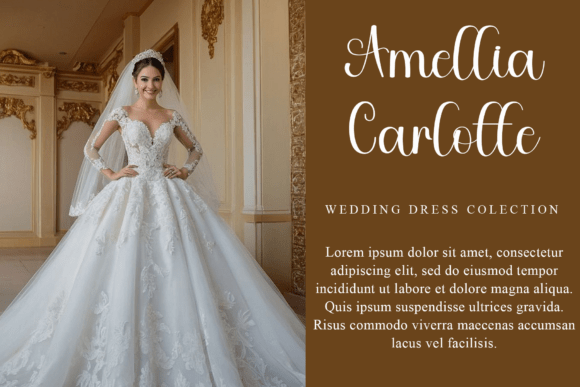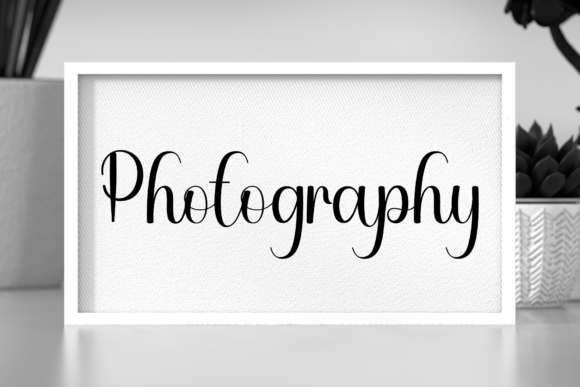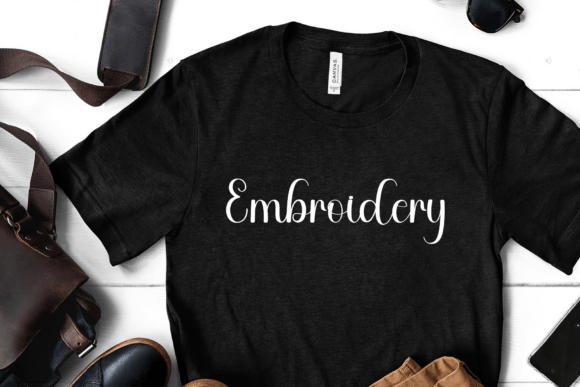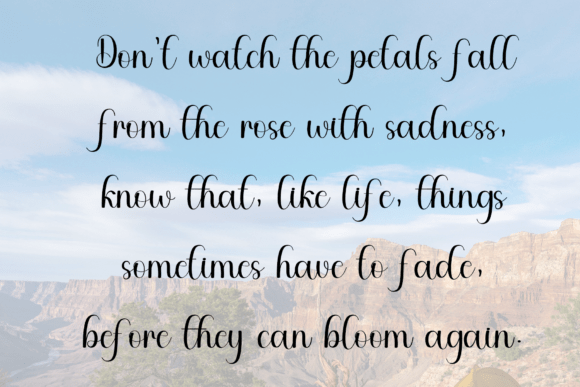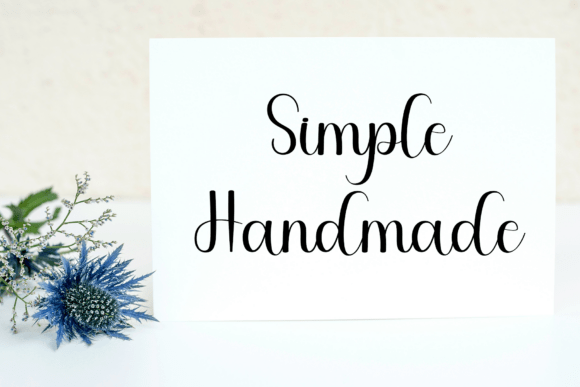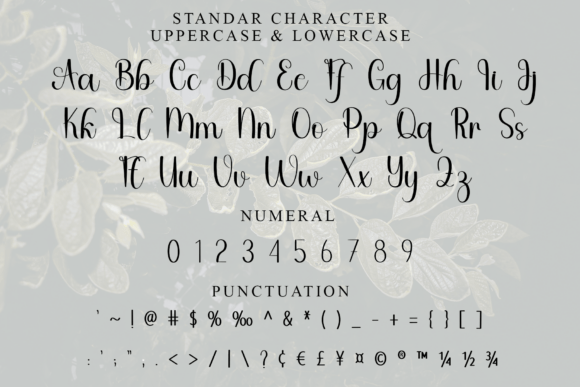
Discover the Warmth of American Signature Font
There’s nothing quite like the feeling of creating something from scratch, watching your ideas come to life with every stroke of the pen. Whether you’re designing a birthday invitation for a loved one or crafting a social media post to share with friends, the right font can make all the difference. That’s where the American Signature Font comes in – a charming, hand-drawn typeface that exudes warmth and friendliness.
This delightful font is perfect for designers looking to add a personal touch to their projects. Its round, playful strokes create a relaxed and approachable feel, making it ideal for personal projects, invitations, and social media graphics. With its PUA Encoded glyphs, you can easily use it in a variety of design applications, from Adobe Photoshop to Canva.
American Signature Font Features
- Unique Characteristics: The American Signature Font features a distinctive, elegant script style with flowing connections between letters, making it ideal for creating formal and professional documents.
Design Review: American Signature Font
Overall, I’m underwhelmed by the American Signature Font. While it has some redeeming qualities, it falls short in several areas.
- The font’s classic, timeless feel is reminiscent of traditional American typography. It’s perfect for projects that require a nostalgic or vintage aesthetic.
- The font’s high x-height and well-spaced characters make it relatively easy to read, even at smaller font sizes.
- The font supports a wide range of languages, including Latin, Cyrillic, and Greek scripts.
- The font’s character set is limited, with some missing characters and symbols. This may cause issues for users who need to display special characters or icons.
- The font’s weight and style options are somewhat limited, making it less versatile than other fonts in its class.
- The font’s italic and bold styles can look somewhat awkward, especially at smaller font sizes.
The American Signature Font is a decent choice for projects that require a classic, traditional aesthetic. However, its limitations and lack of versatility make it a less-than-ideal choice for more complex or modern designs.
For optimal results, use the American Signature Font for titles, headings, and branding elements. This font is particularly suitable for creating a vintage or nostalgic look in your designs.